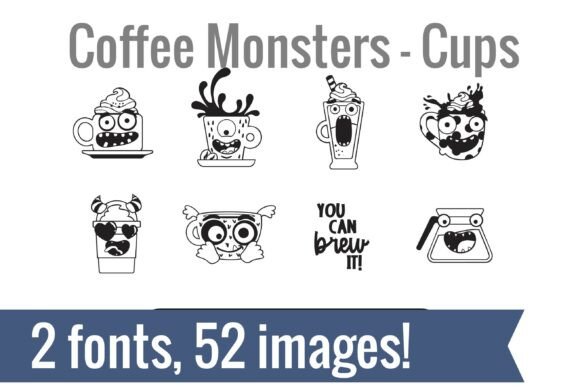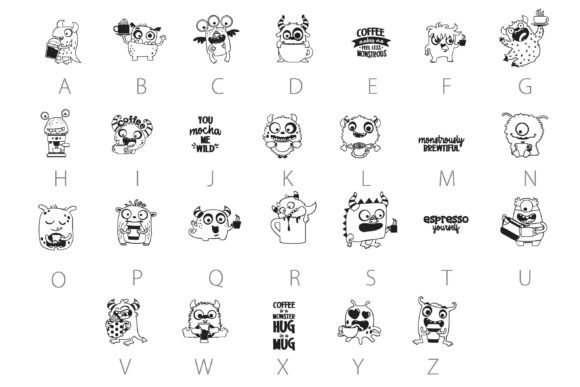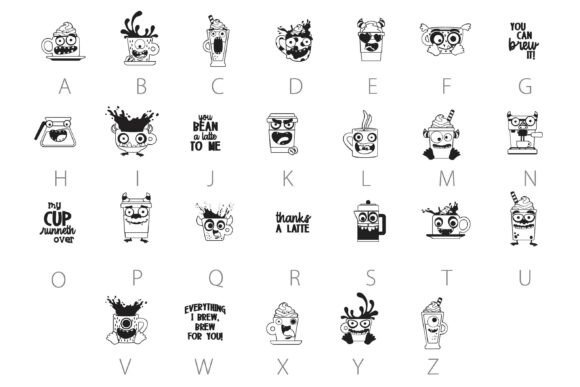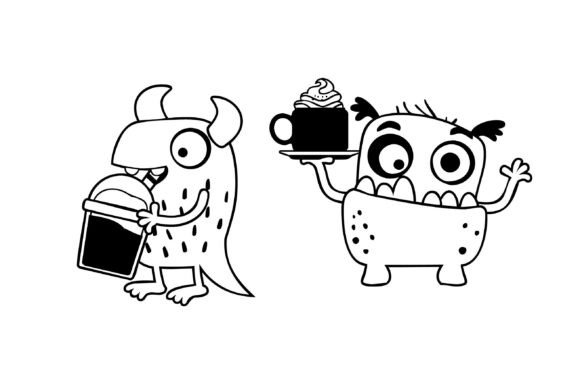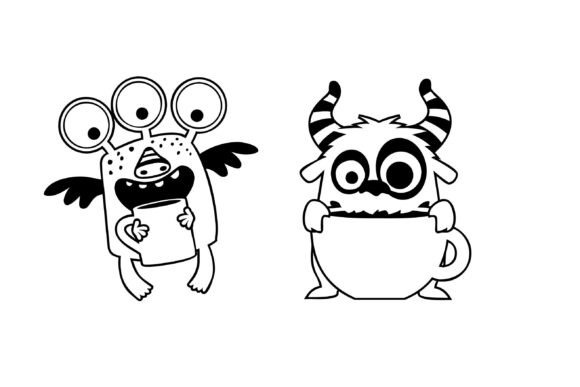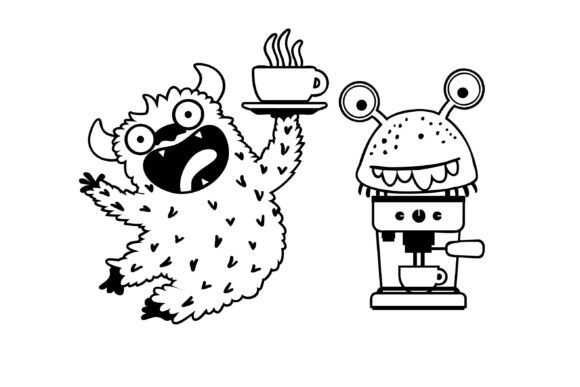
Introduction to Coffee Monsters Dingbats Font
Bring a buzz of fun to your designs with the Coffee Monsters image dingbats font duo.
This quirky set includes 52 unique illustrations featuring coffee-obsessed monsters, caffeine-themed jokes, and hilarious cup creatures From sleepy-eyed beasts to over-caffeinated chaos, this bundle delivers a dose of charm and personality to mugs, tumblers, t-shirts, planner stickers, and more.